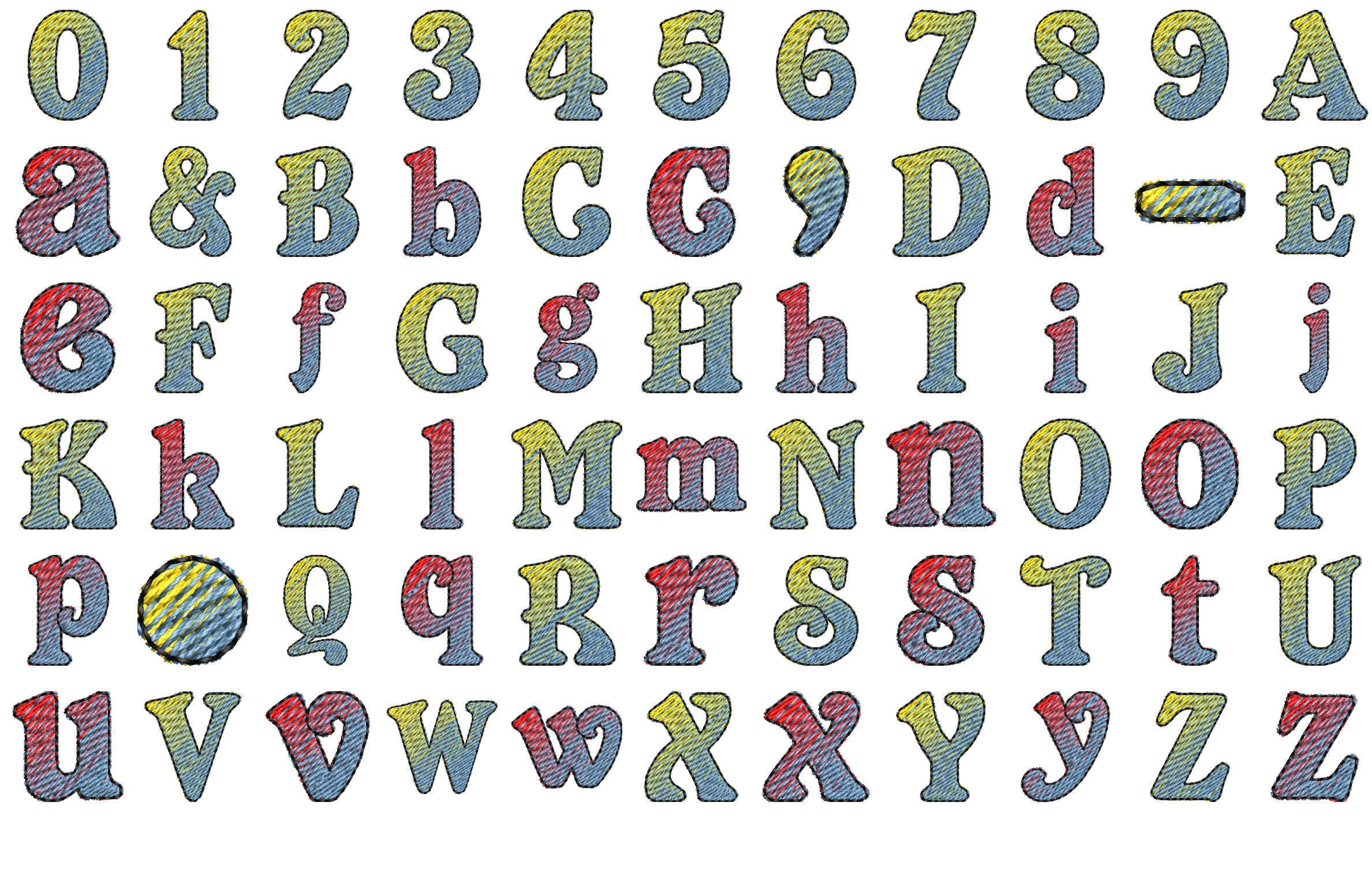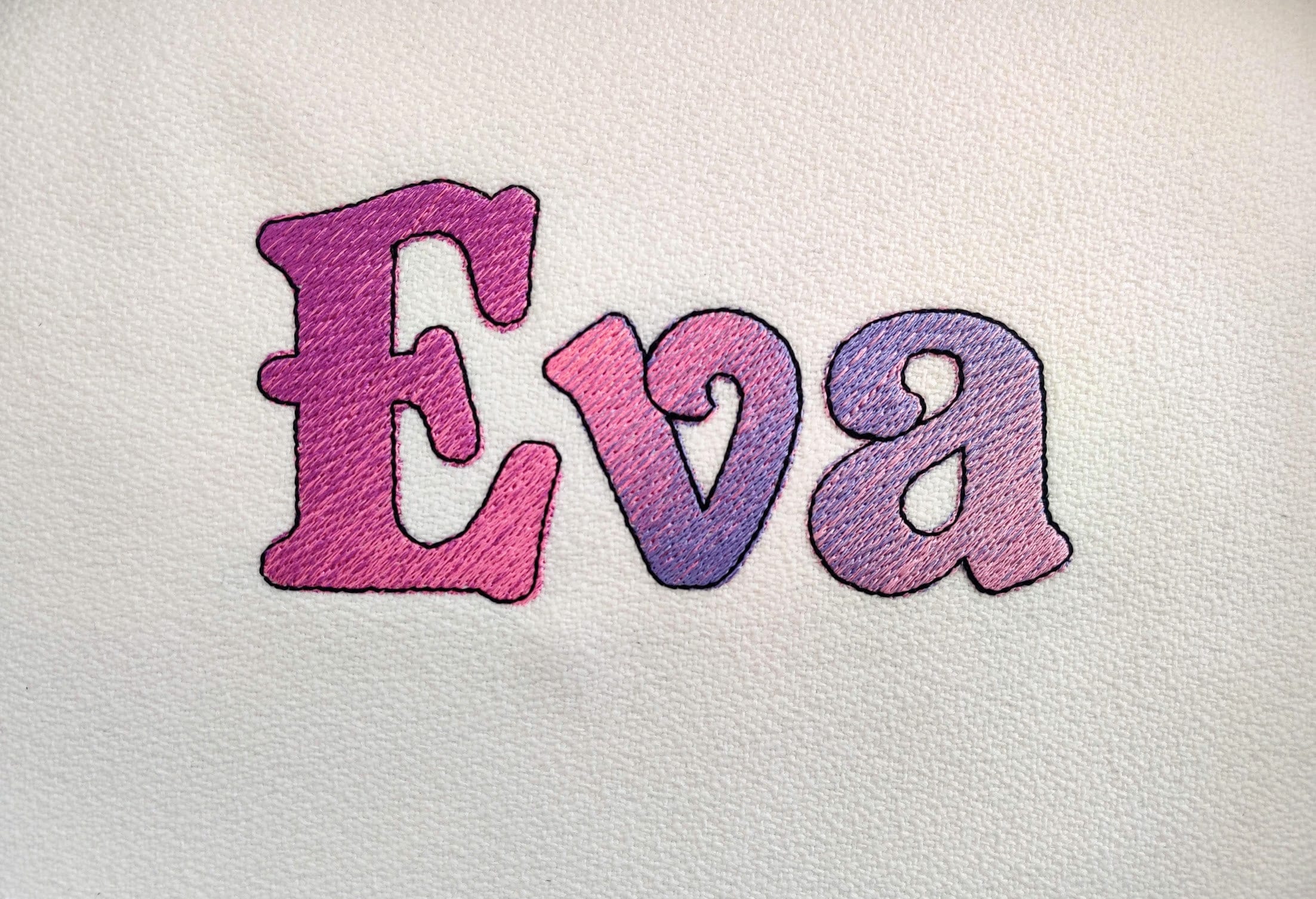
Eva Iridescent 2 Color block FONT alphabet Embroidery designs 1, 2, 3in rainbow gradient embroidery font, NO special thread, BX included
No special thread required! It looks incredible! For this font, regular threads are used (not multi-colored).
The letters are stitched from usual threads, just used two colors to make nice Iridescent effect!
No special thread required. The pattern creates this amazing effect all by itself. Iridescent comes thanks to the design, it has 2 colors. while stitching on one side of letter it stitches more with one color and on other side stitches with opposite color.